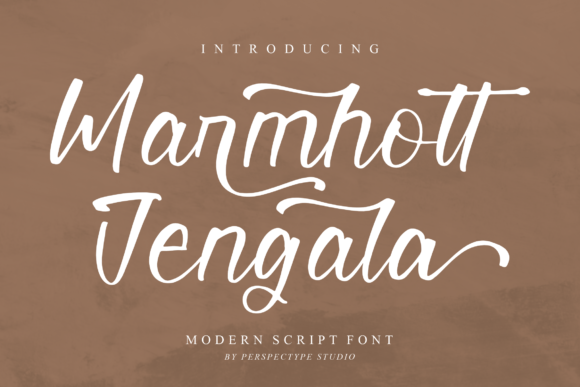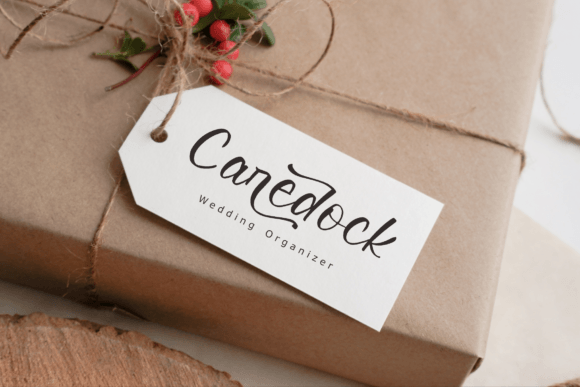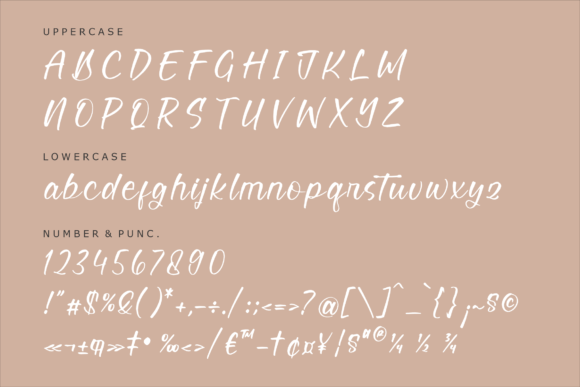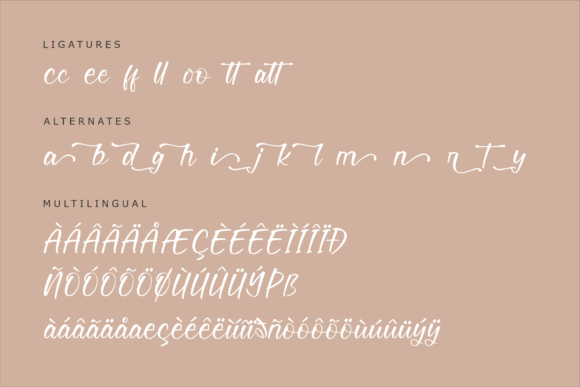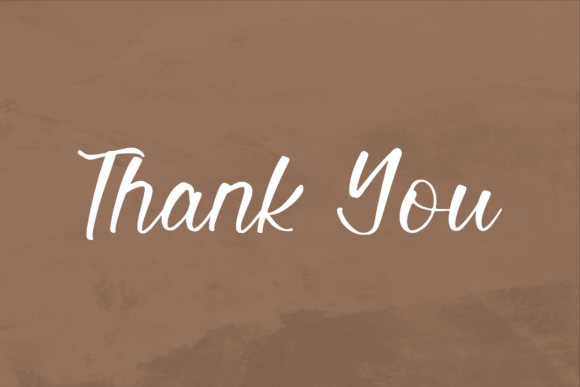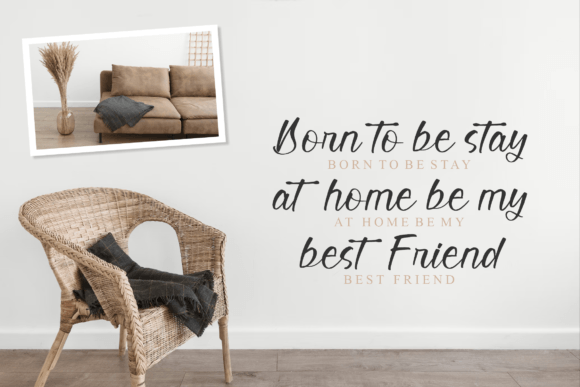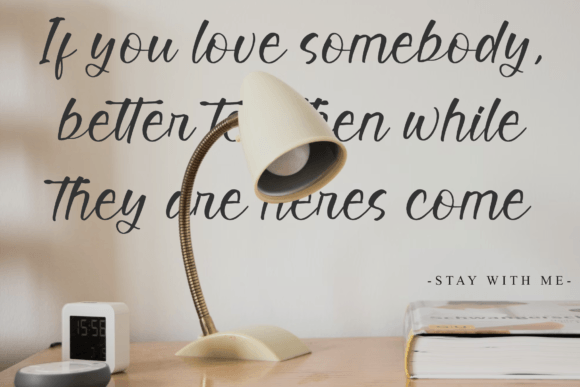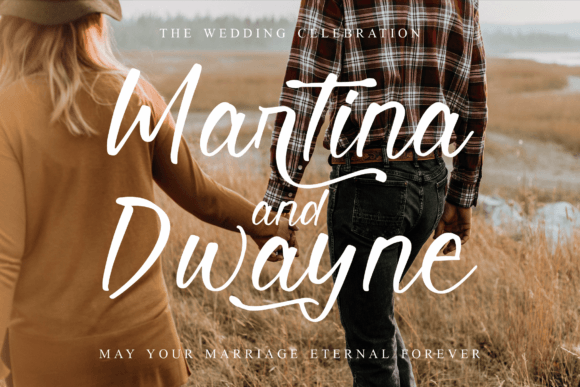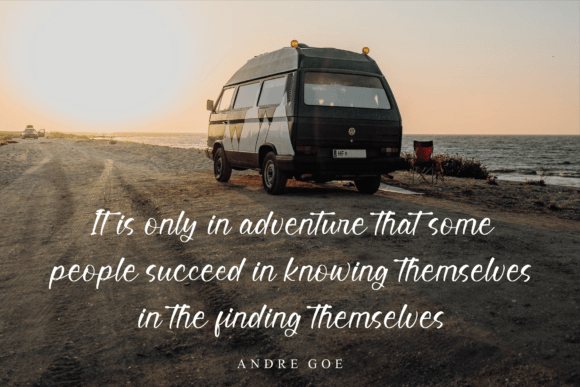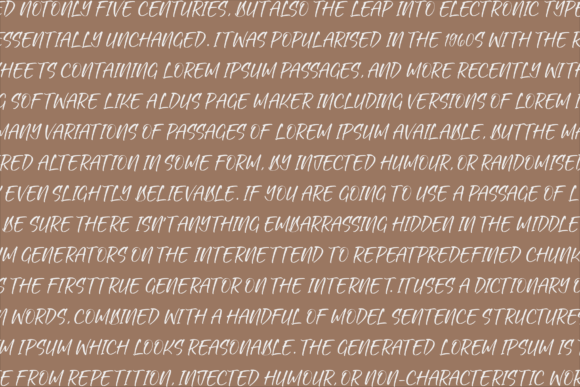
Marmhott Jengala Font
About Marmhott Jengala Font
Marmhott Jengala is an elegant handwritten font that brings sophistication and timeless charm to every design. With graceful curves and a flowing style, this font is the perfect way to make your projects look refined and unique. From wedding invitations to professional branding, Marmhott Jengala captures attention and adds a personal touch that feels both luxurious and warm.
Designed for Beautiful Invitations
Marmhott Jengala is ideal for creating wedding stationery and special event materials. Its smooth, natural strokes look stunning on invitations, RSVP cards, and thank you notes. The delicate style communicates romance and care. Whether you are designing for a modern celebration or a classic occasion, this font adapts perfectly.
Perfect for Logos and Branding
A memorable logo needs a font with personality. Marmhott Jengala gives your brand a handcrafted look while remaining professional and polished. Use it to create elegant logos, business cards, packaging, and social media graphics. The font’s unique letterforms help your brand stand out and feel approachable.
Versatile for Many Creative Projects
This font is designed for flexibility and can elevate almost any creative project:
• Wedding invitations and event materials
• Branding and logo designs
• Personalized greeting cards and thank you notes
• Quote prints and wall art
• Product labels and packaging
• Social media content and website banners
• Digital presentations and slideshows
Every project you create will benefit from the flowing style and elegant character of Marmhott Jengala.
A Timeless Handwritten Style
One of the reasons designers love Marmhott Jengala is its timeless appeal. The smooth connections between letters make your text look cohesive and polished. This font feels both modern and classic, making it a reliable choice for any design that requires a handwritten feel without sacrificing elegance.
Why Choose Marmhott Jengala?
Marmhott Jengala is perfect for designers who want:
• Elegance: A graceful, flowing script
• Versatility: Suitable for print and digital projects
• Authenticity: A natural handwritten appearance
• Professional results: Clean, clear lettering at any size
When you use Marmhott Jengala, your designs will feel thoughtful, refined, and unforgettable.
Elevate Your Next Design
Whether you are designing a wedding suite, a branding package, or a simple greeting card, Marmhott Jengala will make your work stand out. It’s the perfect balance of beauty, readability, and elegance.